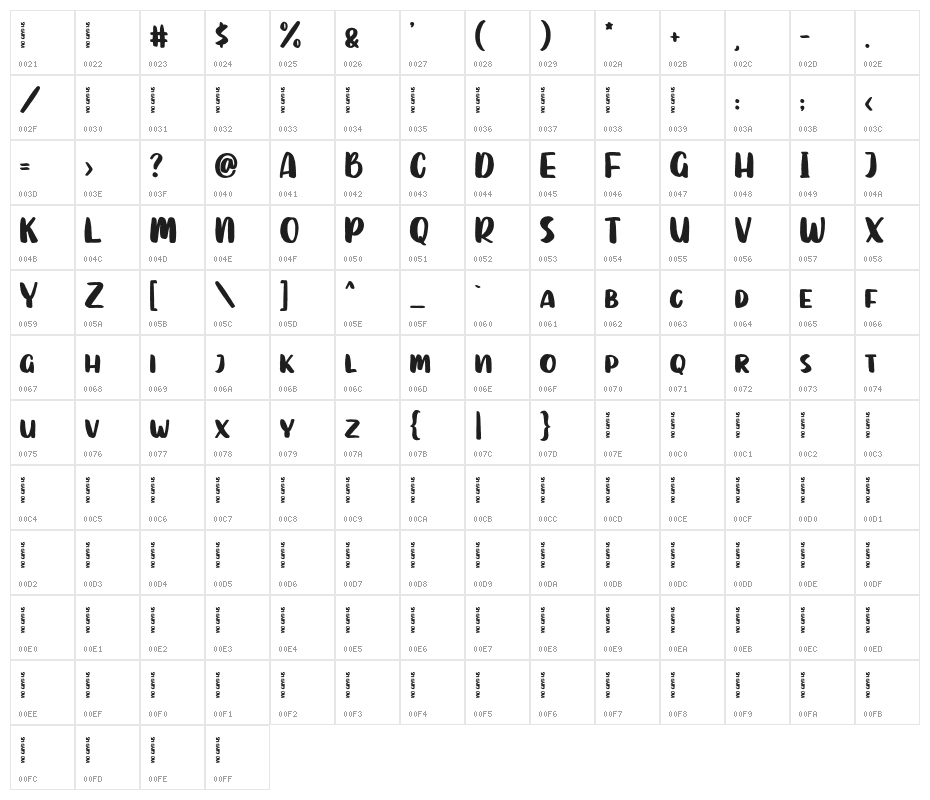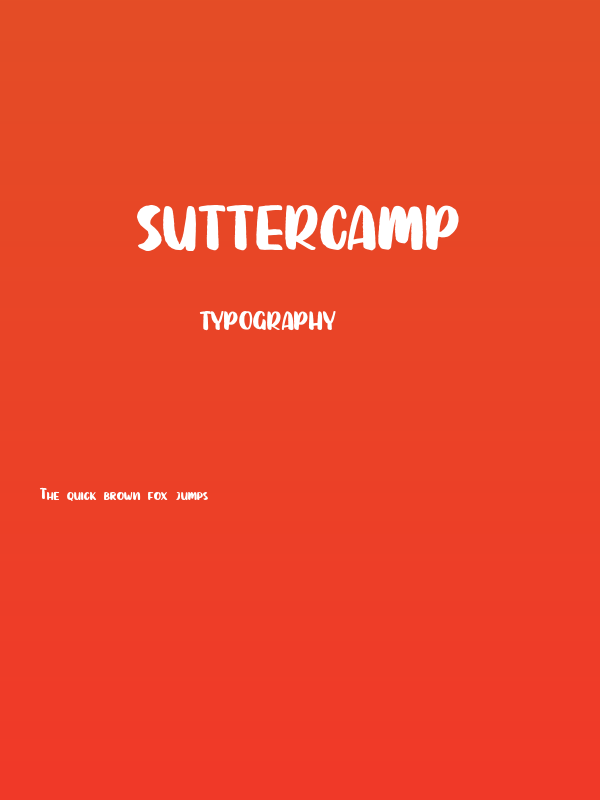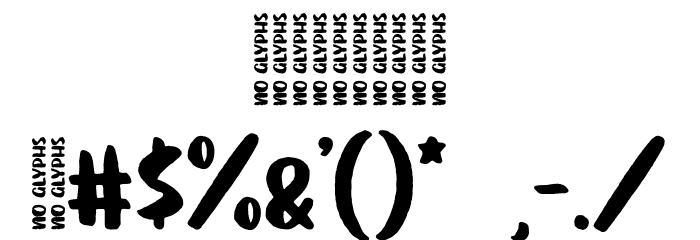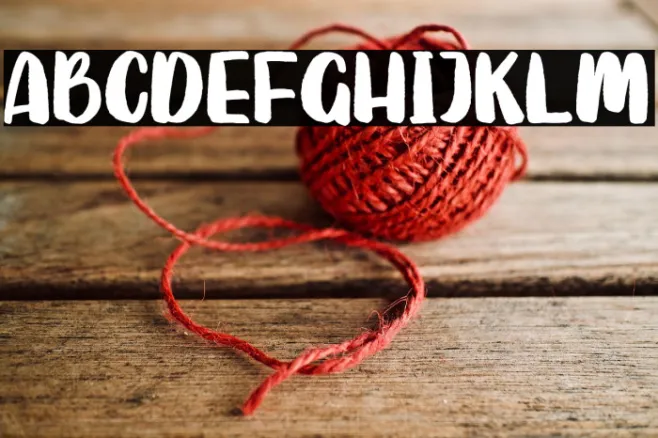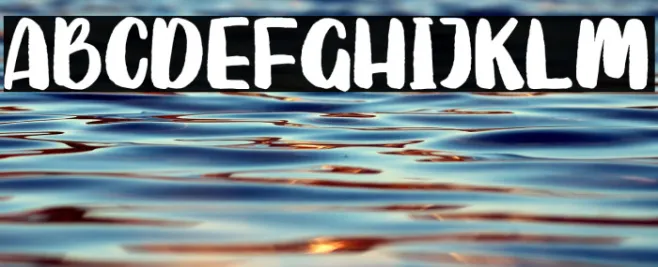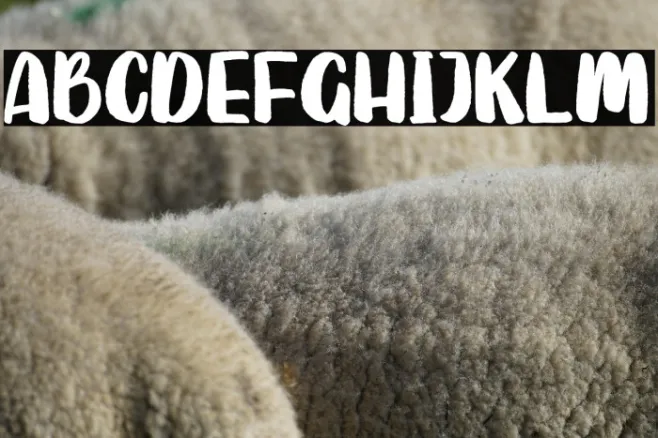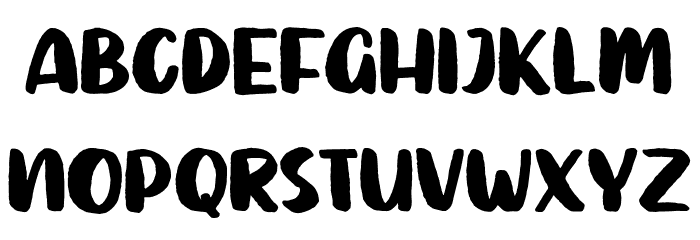
SutterCamp Font
SutterCamp Description
This font features a bold and playful handwritten style, characterized by thick strokes and rounded edges. The uppercase and lowercase letters maintain a consistent flow, giving it a cohesive and friendly appearance. The characters are slightly condensed, which adds to its unique charm. The special characters, such as #, $, %, and &, are designed with the same boldness and playful touch, making them stand out. This font is perfect for projects that require a personal and approachable feel, such as children's books, greeting cards, or playful branding materials.
| Use Case | Headlines, Logos, Casual Invitations |
| Proposed Projects | Ideal for children's books, greeting cards, playful branding, and casual invitations. |